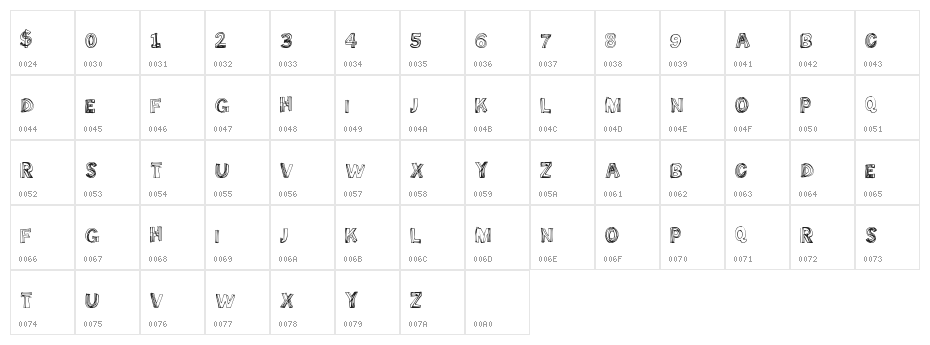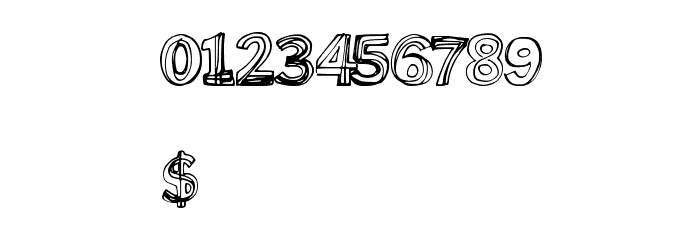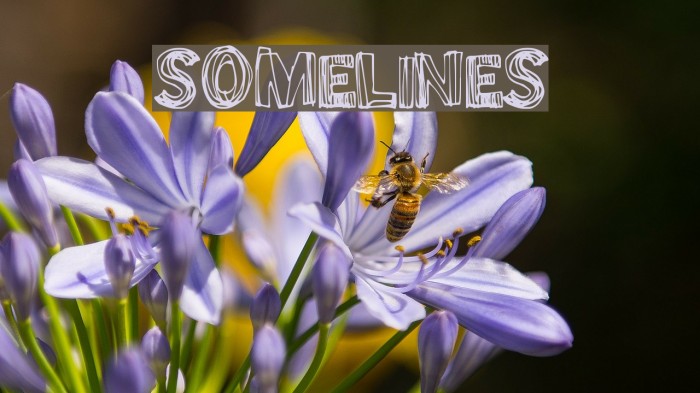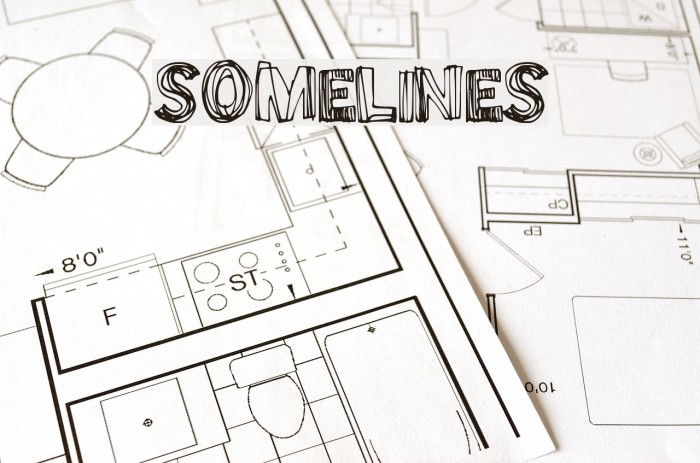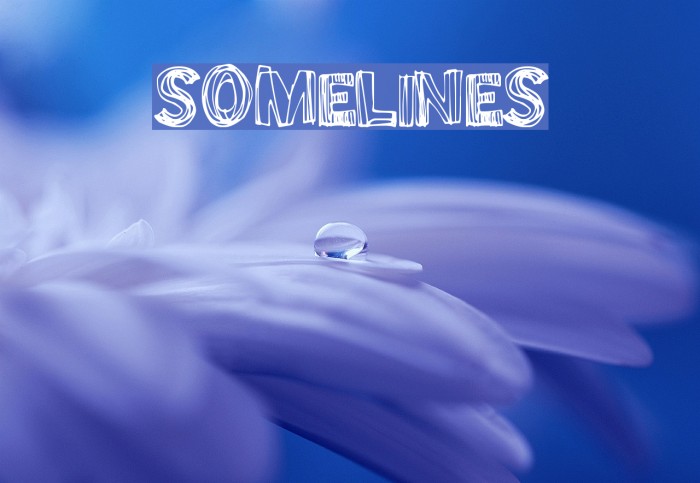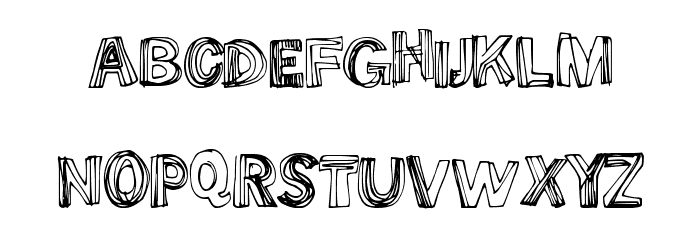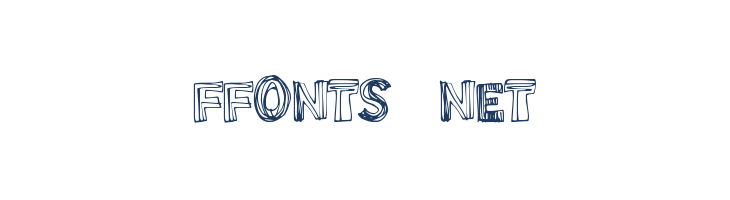
SomeLines Font
SomeLines Description
This font features a playful and artistic design, characterized by its sketch-like, hand-drawn appearance. Each character is composed of multiple overlapping lines, giving it a textured and dynamic look. The uppercase and lowercase letters maintain a consistent style, with a slightly irregular and whimsical quality that adds to its charm. The numbers and special characters follow the same design principles, ensuring a cohesive appearance across all glyphs. This font's unique style makes it stand out, making it ideal for creative projects that require a touch of individuality and flair.
| Overall Style | Artistic, Playful |
| Proposed Projects | Ideal for children's books, creative posters, artistic branding, and playful invitations. |